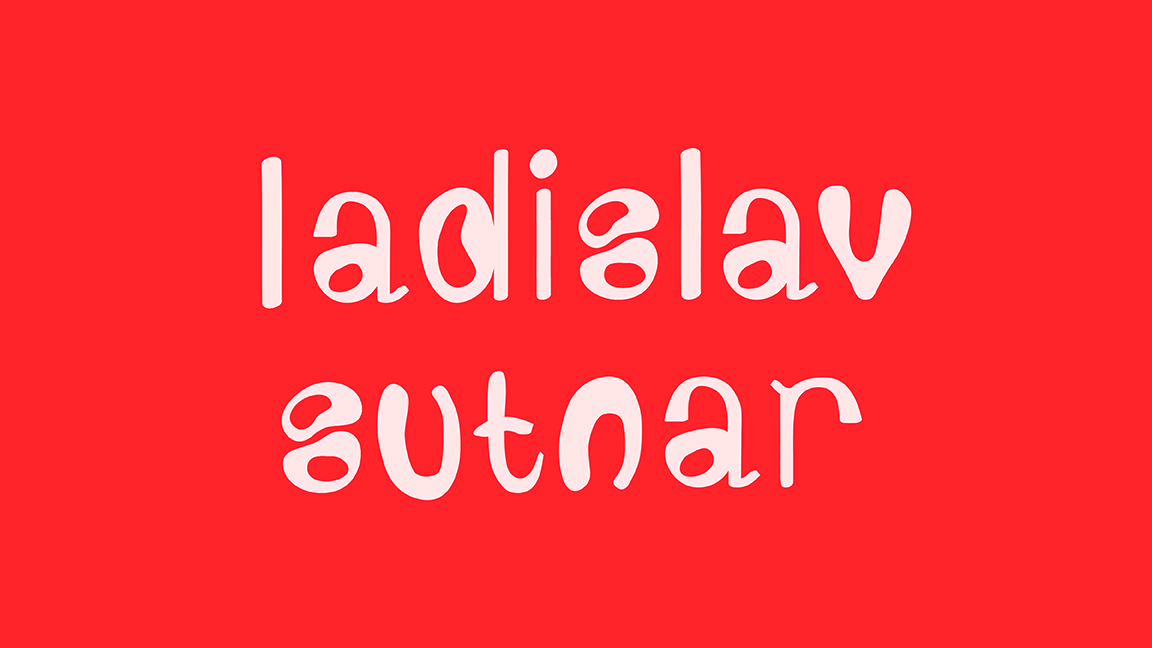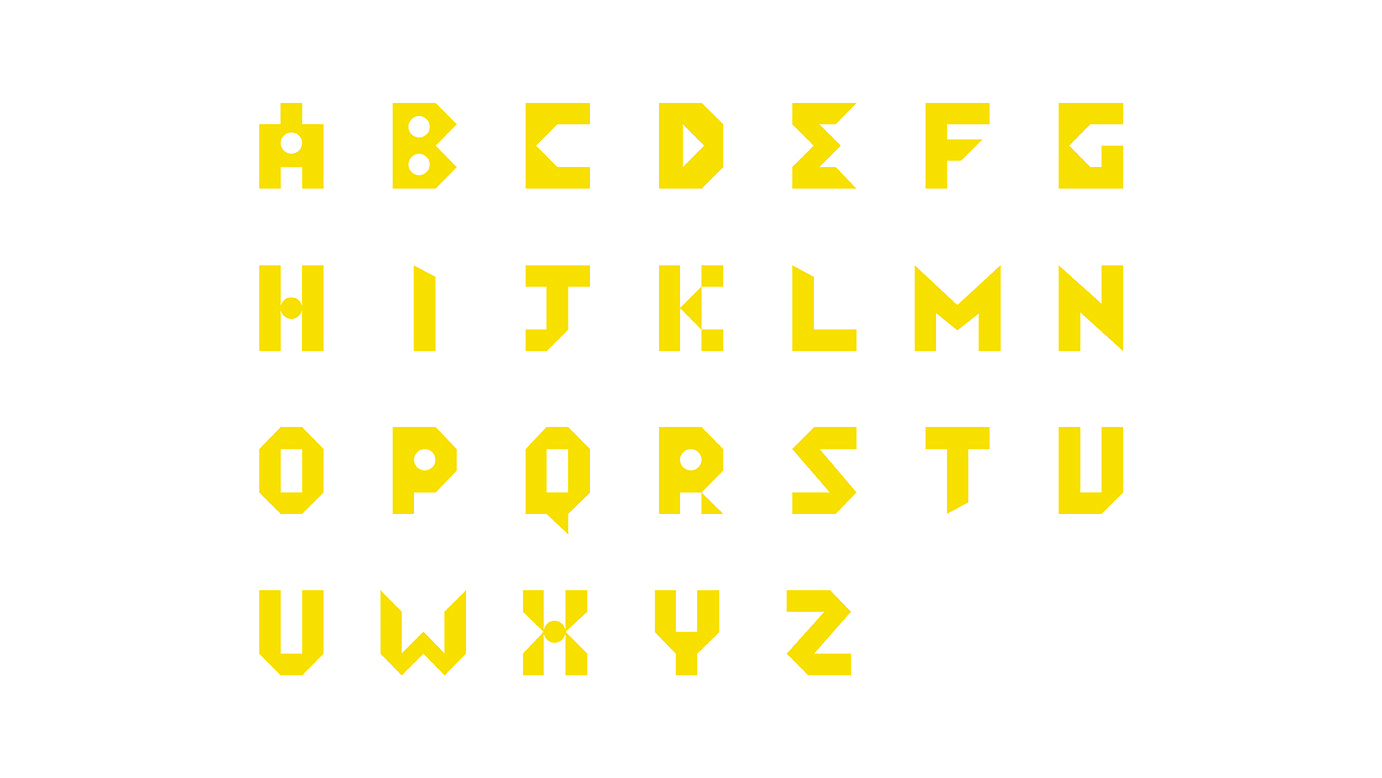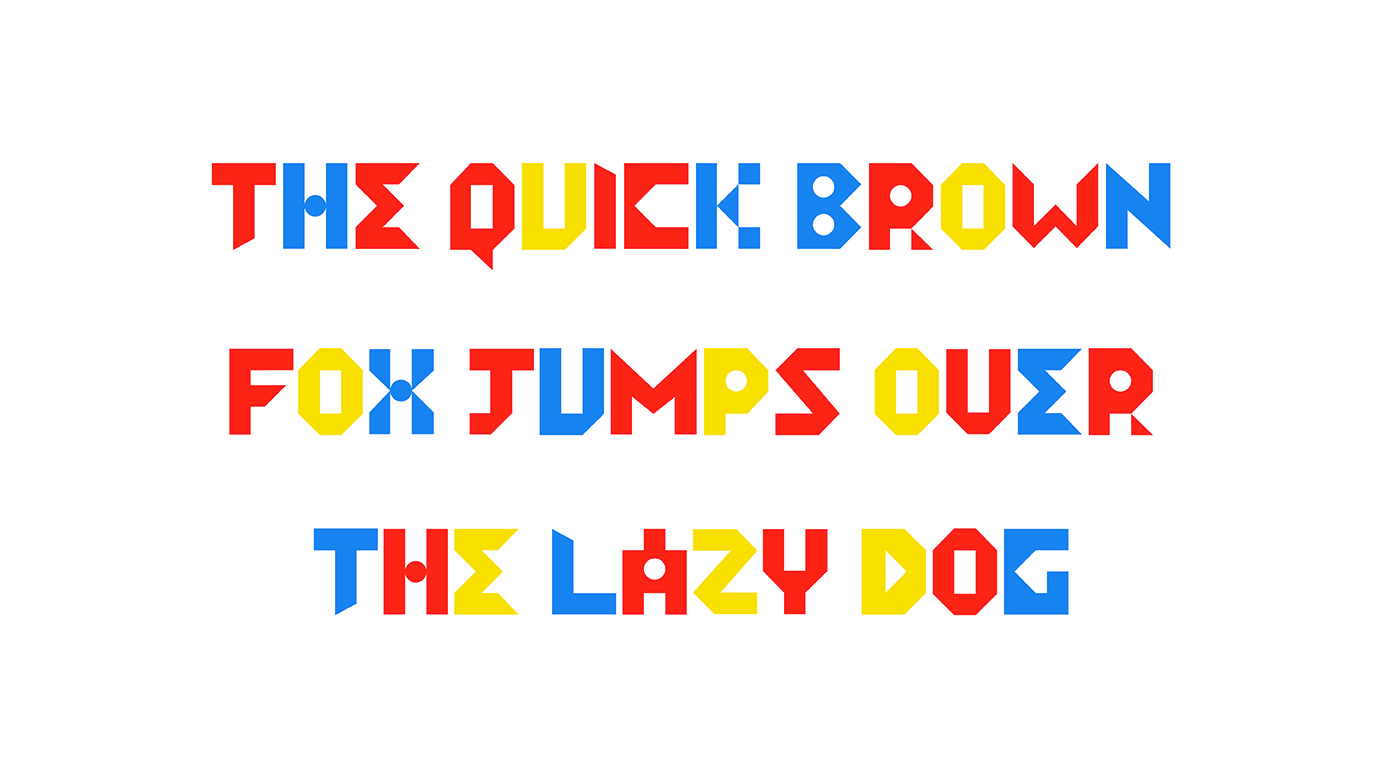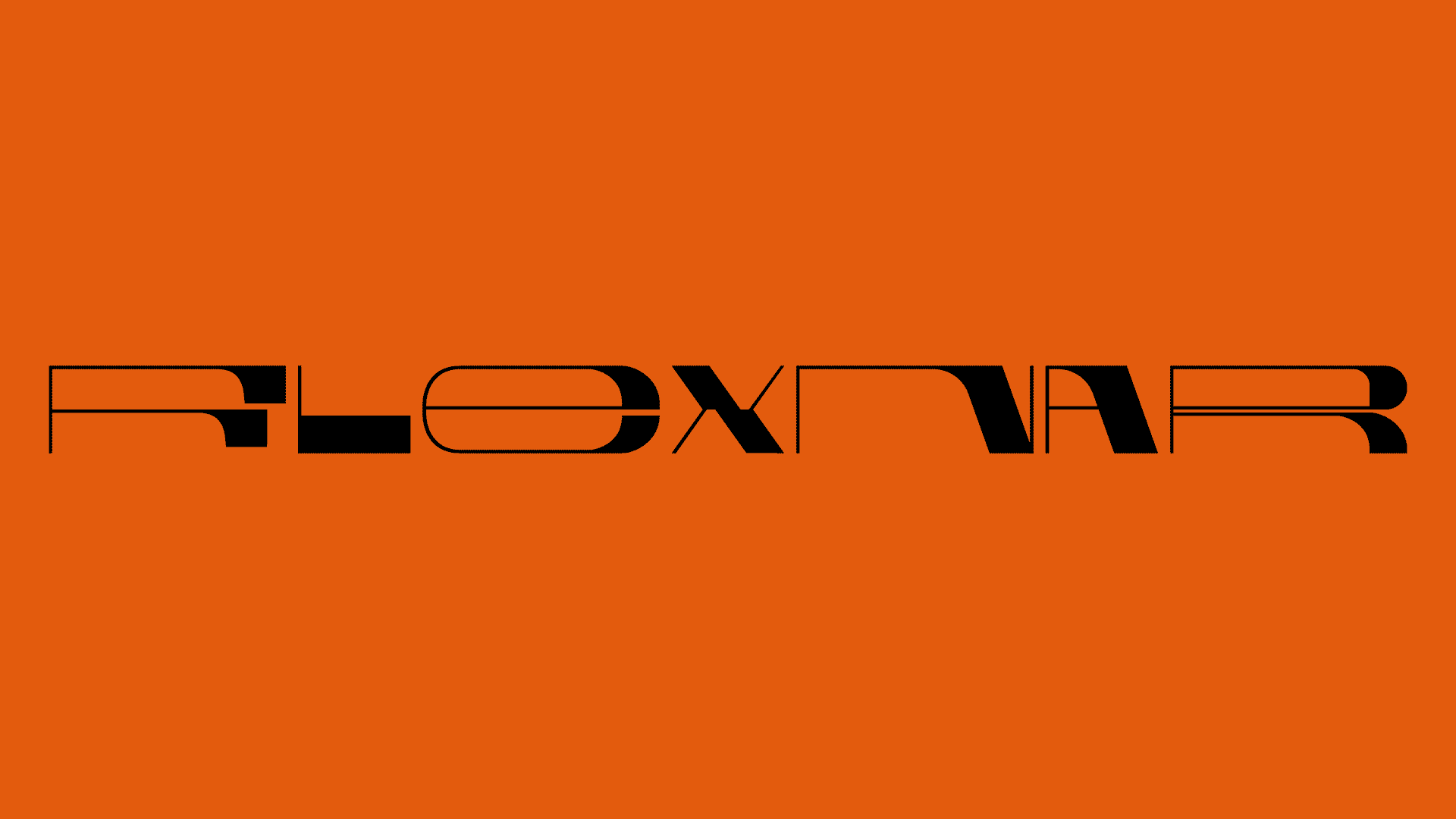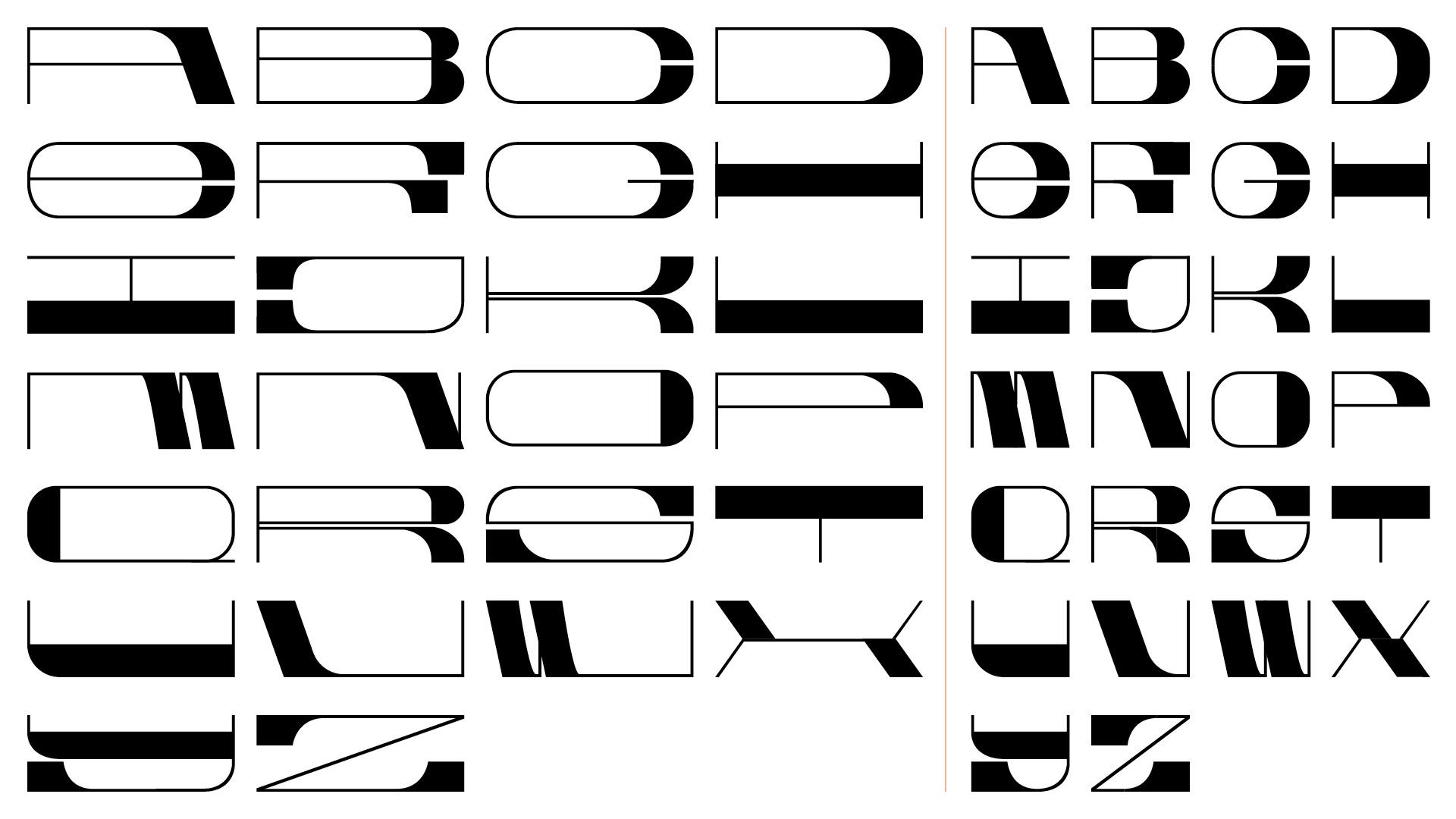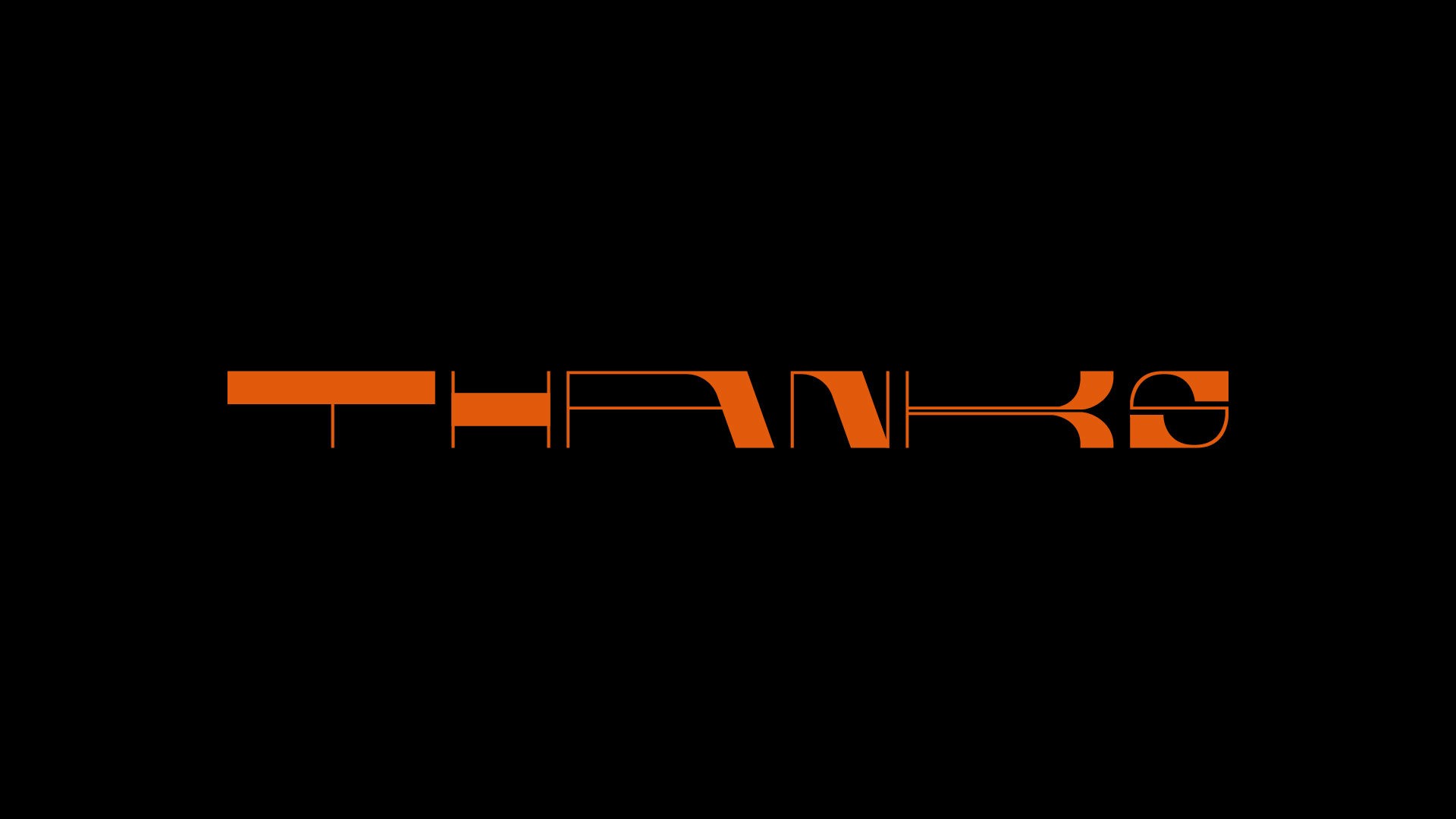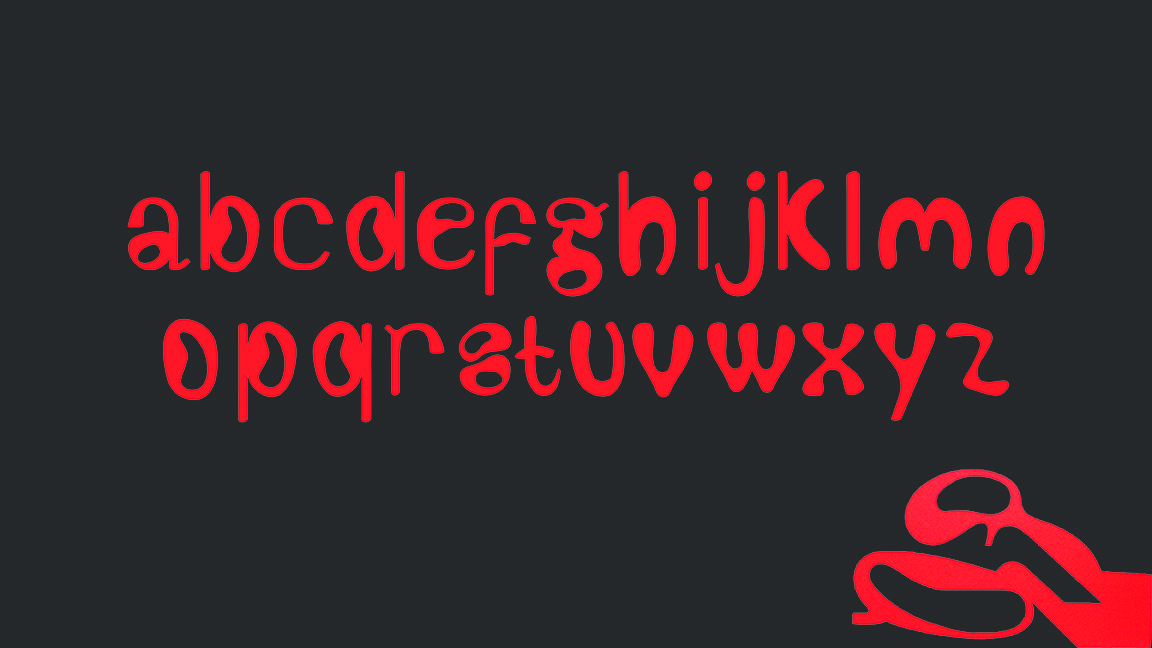
Ladislav Sutnar-Inspired Typefaces Part 2
Here are another selection of typefaces from the Class of 2021.
1. Michael Kao did another yet unique interpretation of Sutnar's toys, using his sky blue, cadmium (orange) and yellow.
2. Tiffany Pai and **Chaoquin Wang **collaborated on an expandable Sutnar face called Flexnar.
3. Roulin Feng's interpretation was based on the icons he designed for Carr's Department Store, particularly a pair of scissors with an abstract shape.
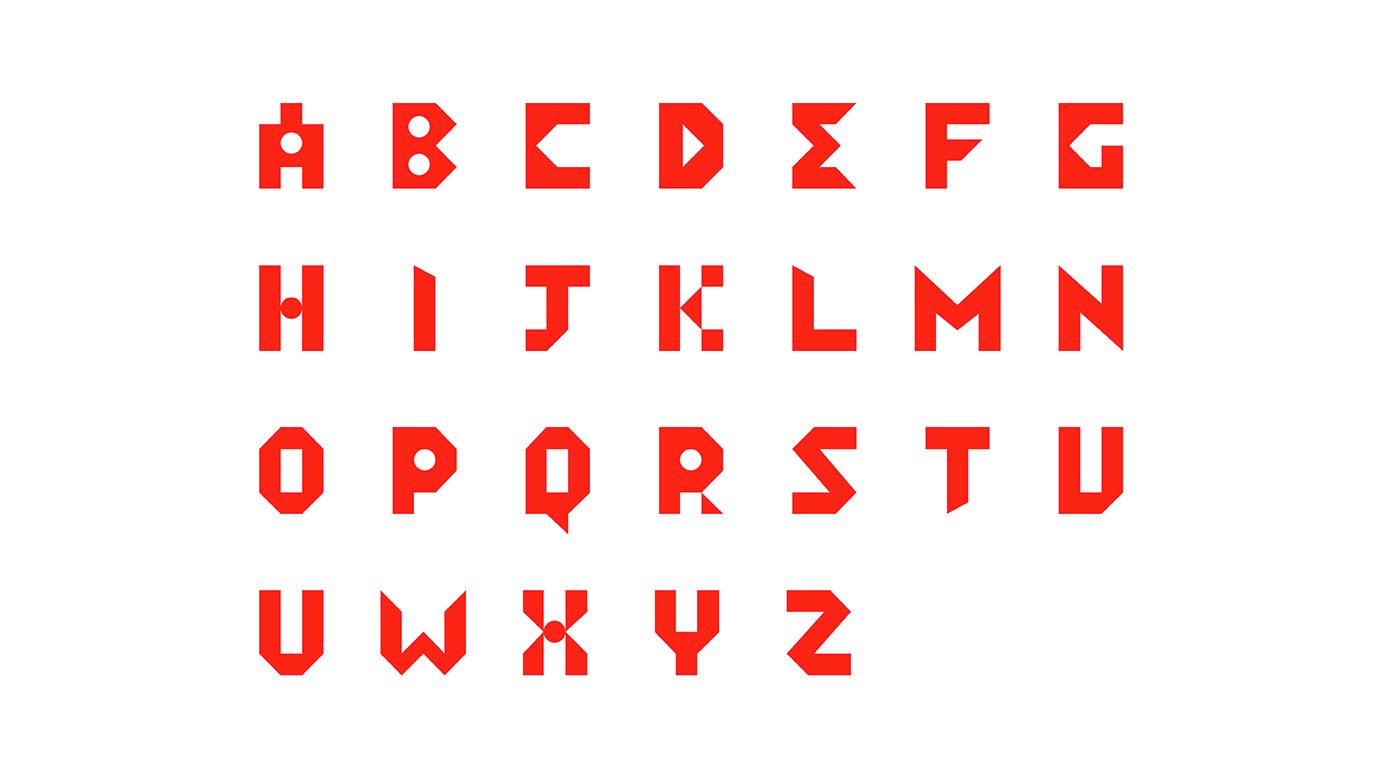
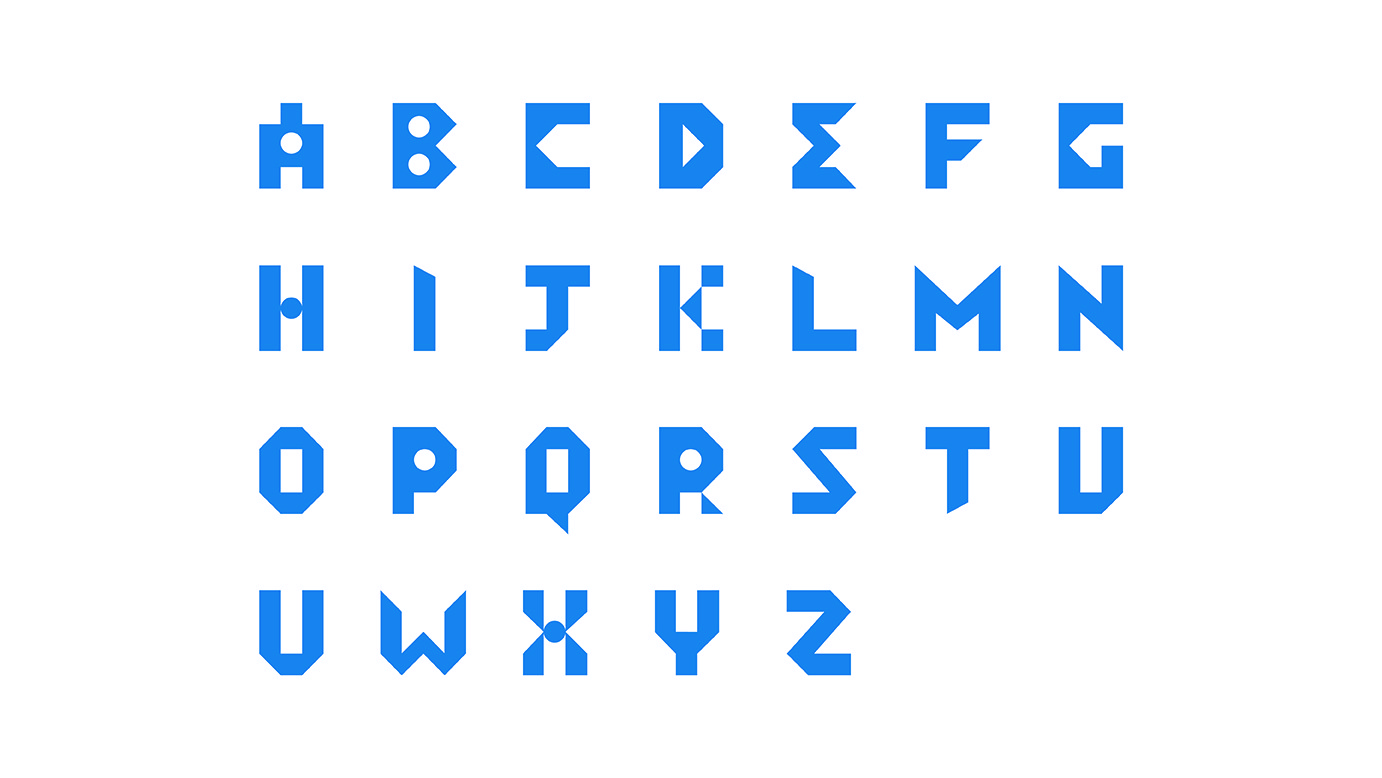    red alphabets on white background
blue alphabets on white background
yellow alphabets on white background
red, blue and yellow type on white background
Flexnar typeface black on orange background
black type on white background
Flexnar typeface orange on black background
Ladislav Sutnar inspired typeface
Flexnar typeface, black on orange background